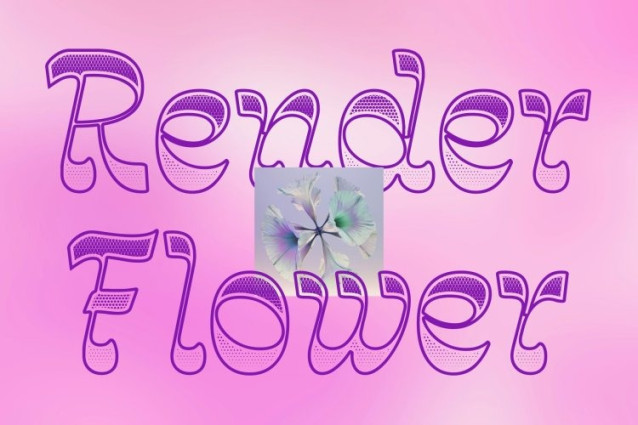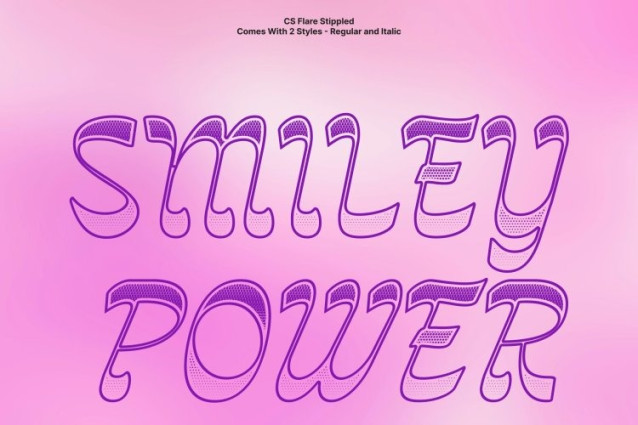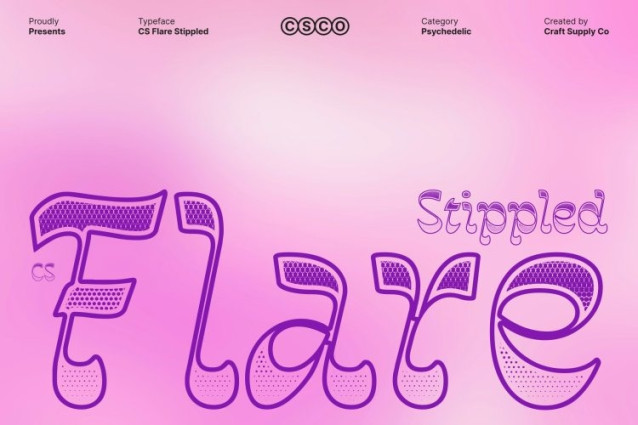
CS Flare Stippled Font
CS Flare Stippled Font – This is a distinctive serif display font that introduces a bold reverse contrast structure, where traditional stroke weight is inverted thin strokes become thick while thick strokes become thin. This unexpected approach creates a striking visual rhythm that feels both classic and unconventional. Enhanced with a stippled texture, the letterforms gain a subtle dotted surface that adds depth, warmth, and a handcrafted feel to the refined serif shapes.
Retro Aesthetic with Bold Personality
The reverse contrast style evokes the charm of vintage typography often seen in retro signage and classic print design. Combined with the stippled detailing, delivers a nostalgic yet energetic appearance. The textured finish enriches the retro aesthetic, giving the font a slightly aged, tactile quality that enhances its visual appeal.
Perfect Balance of Tradition and Modernity
This font merges the elegance of traditional serif typography with a modern experimental twist. Its unusual contrast distribution and textured detailing make it highly engaging while maintaining a sense of sophistication. This balance allows the font to feel both timeless and contemporary.
Ideal for Bold and Stylish Design Projects
This font works beautifully for branding, editorial layouts, posters, packaging, and vintage-inspired design. Its combination of reverse contrast structure, retro charm, and stippled texture ensures strong visual impact while preserving a refined typographic presence.